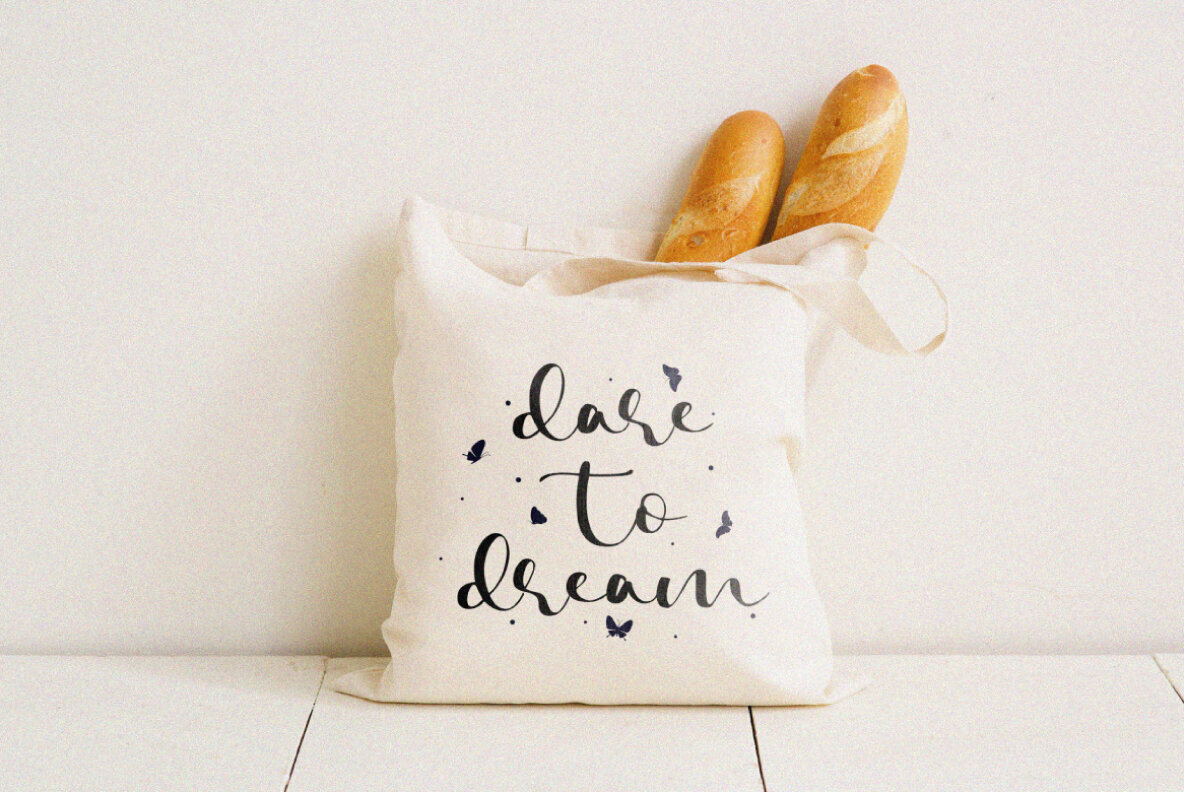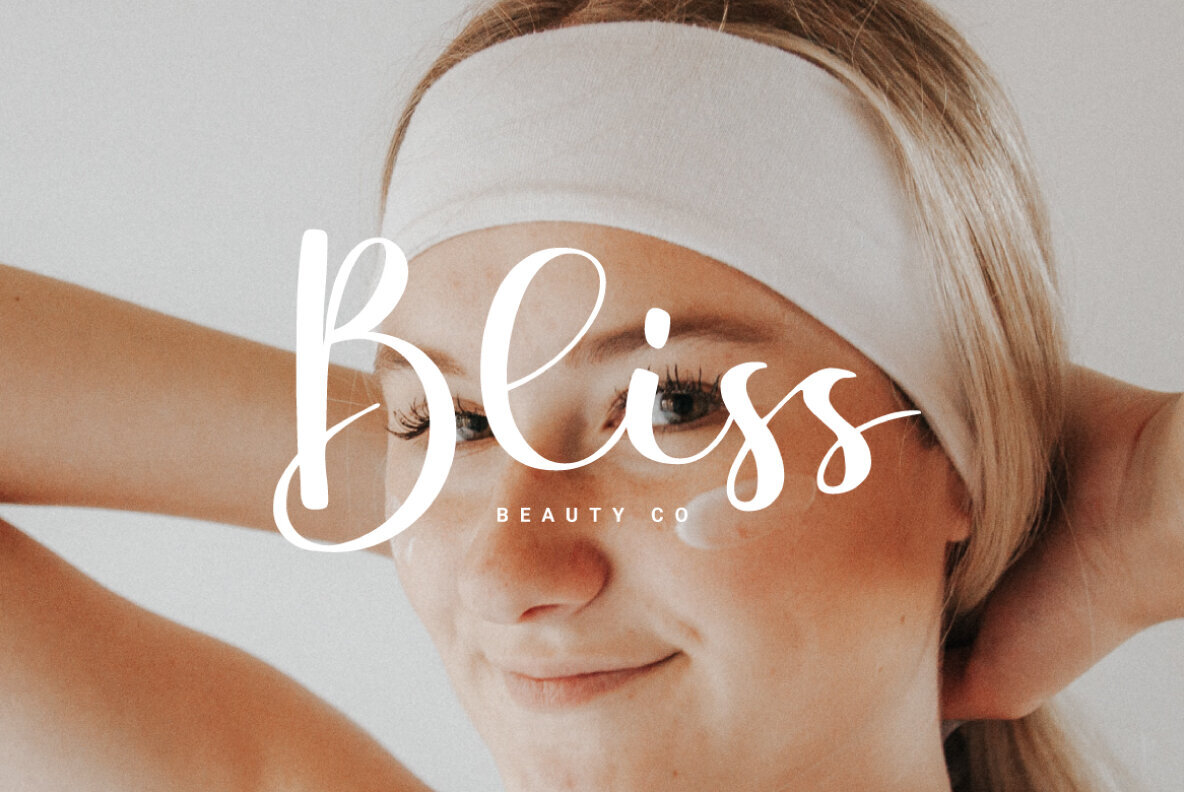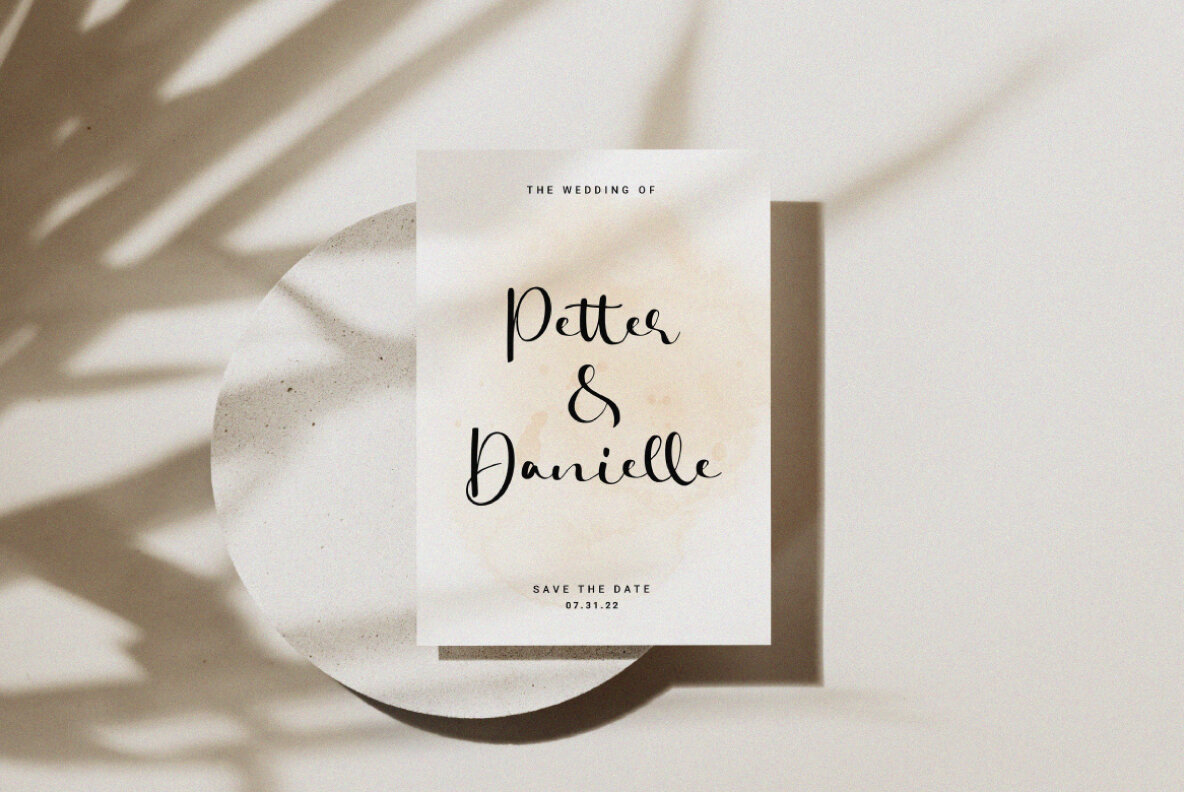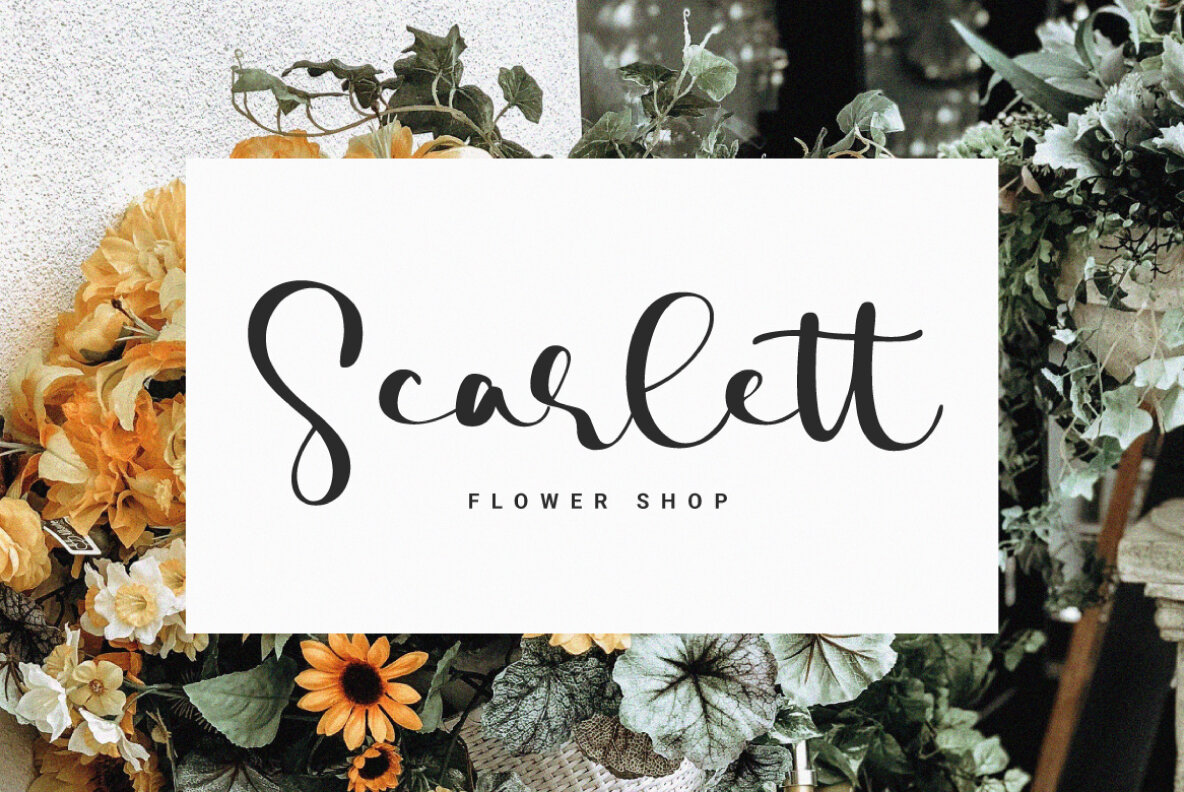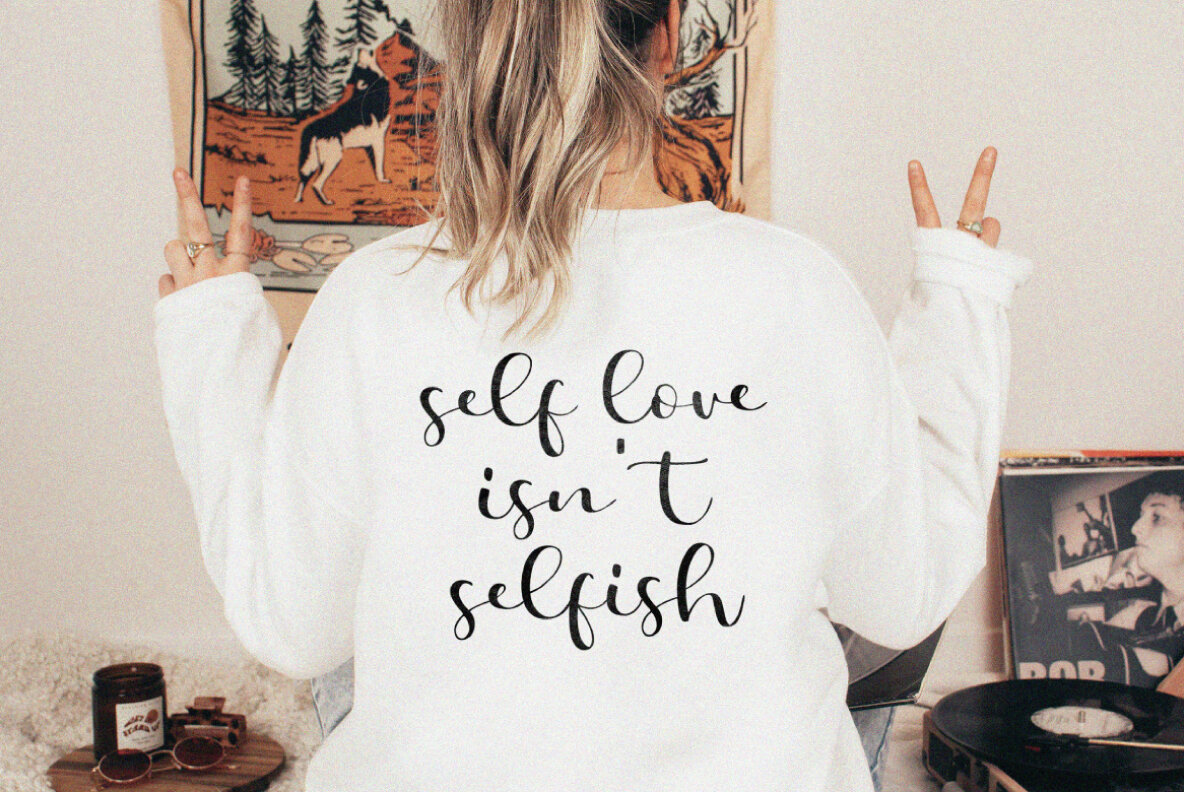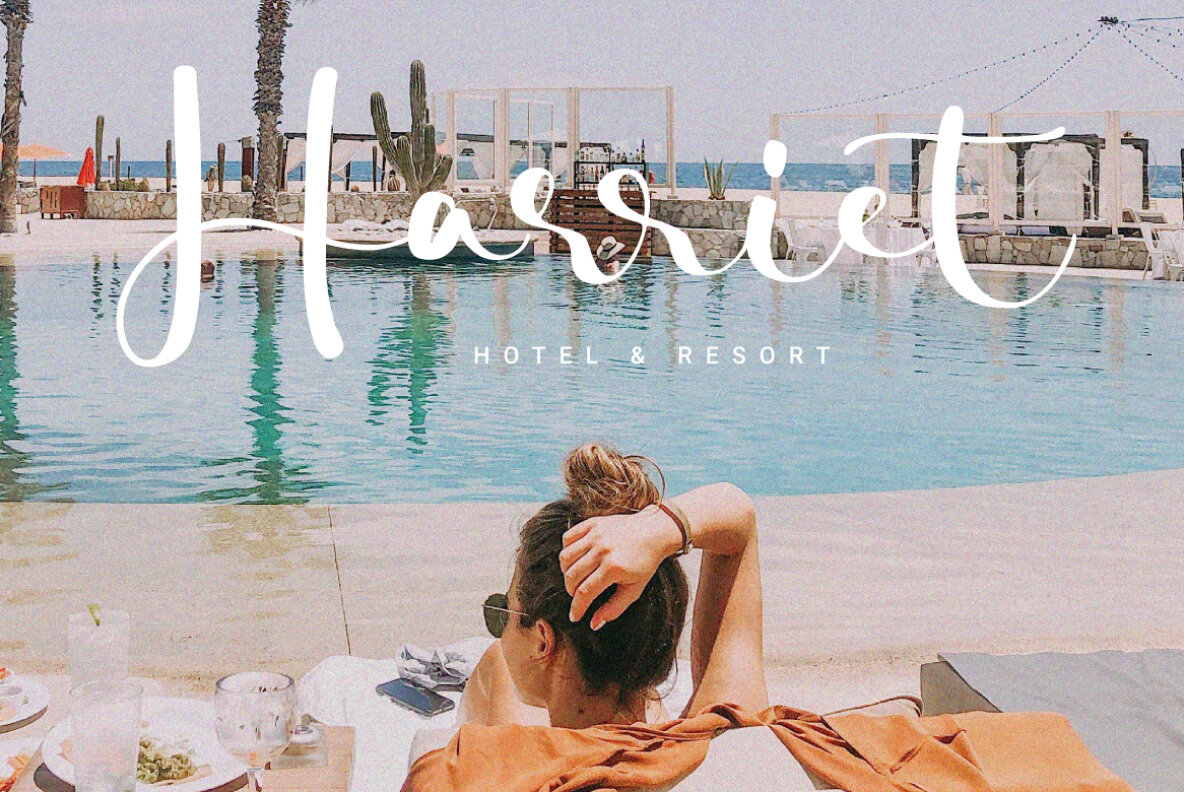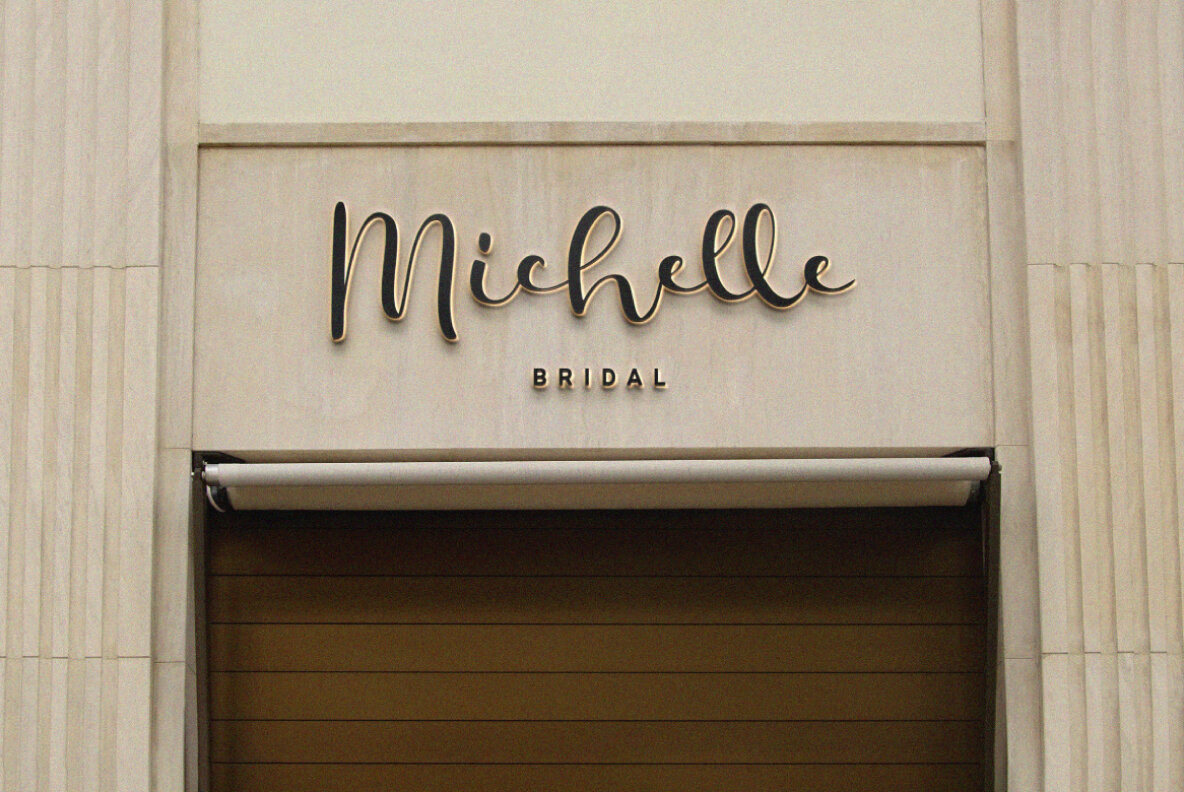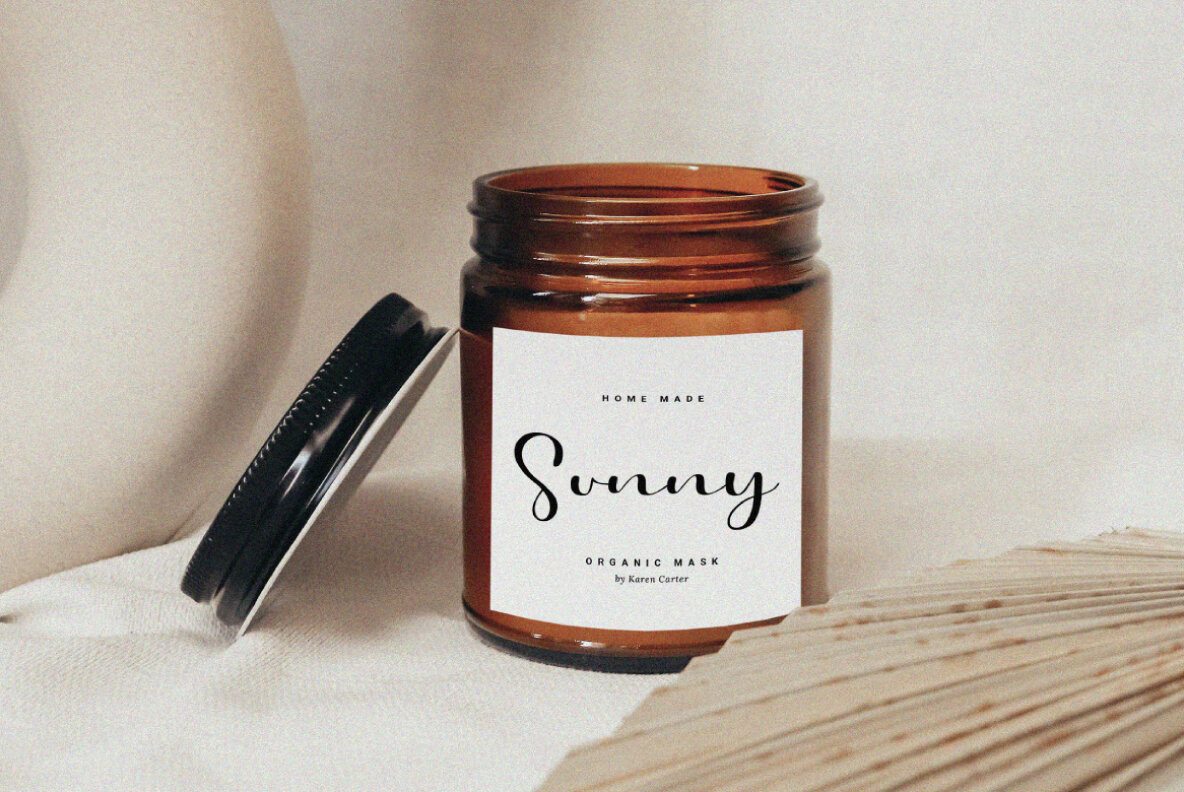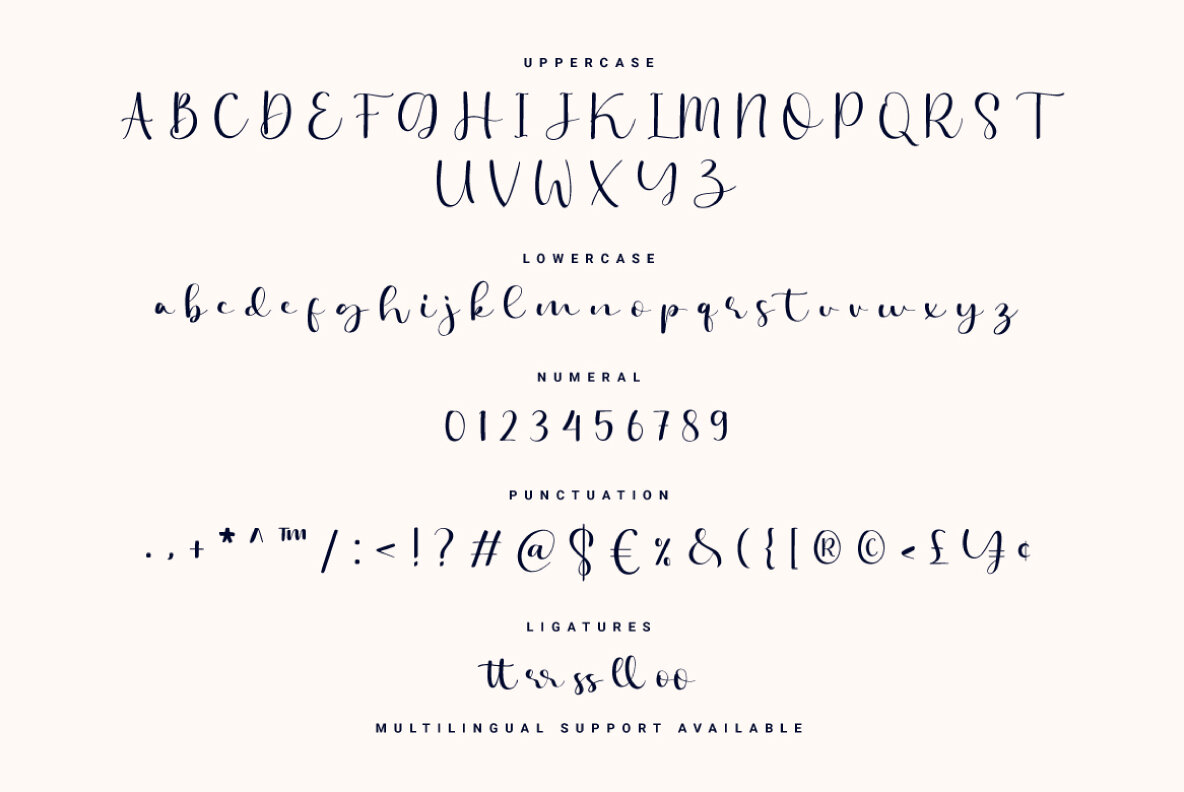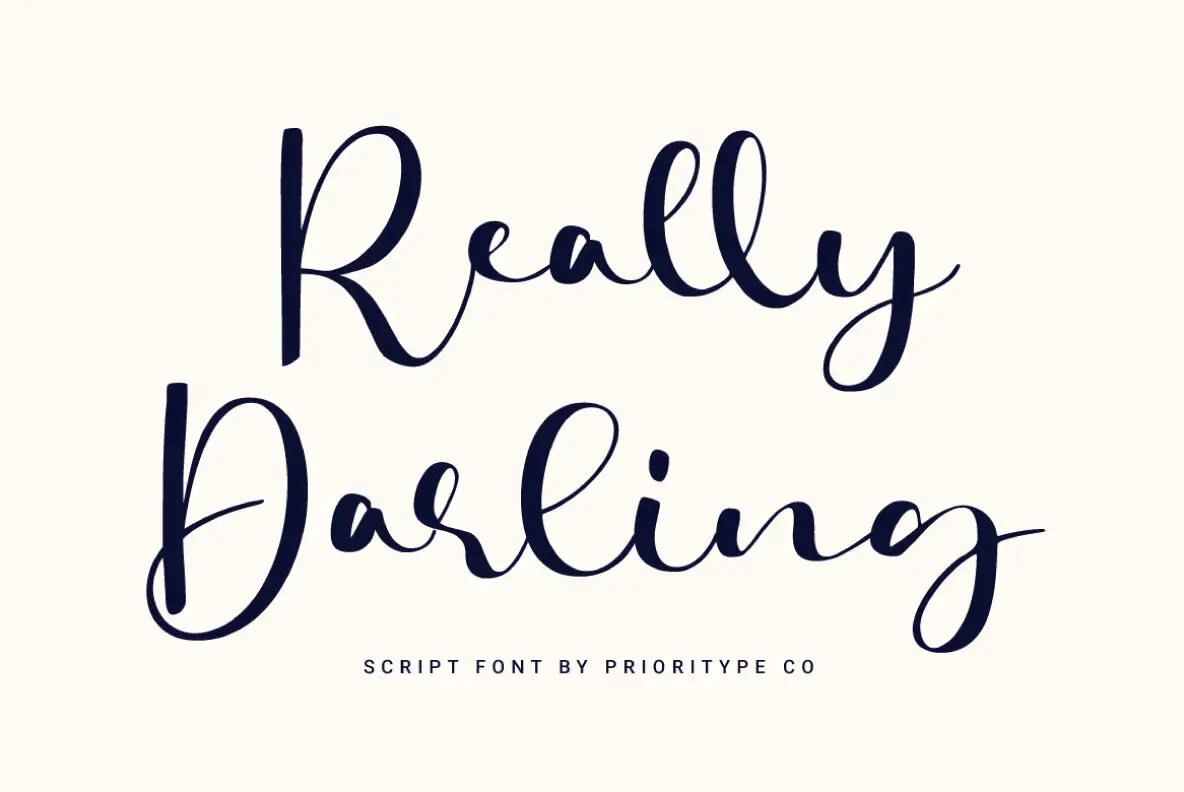
Really Darling Font
Really Darling
Really Darling is a captivating handwritten script font, perfect for adding a touch of elegance to your design projects. Its smooth, natural strokes and clever ligatures ensure a sophisticated yet approachable aesthetic. Ideal for wedding invitations, branding, logos, and merchandise, this font brings a unique charm to each creative endeavor.
Features include both uppercase and lowercase letters, numerals, punctuation, multilingual support, and ligatures. The multilingual range covers an extensive list of languages such as Afrikaans, Danish, Dutch, English, French, German, Italian, Spanish, and many more. This extensive language support makes Really Darling a versatile choice for designers across the globe, allowing creative freedom without constraints.